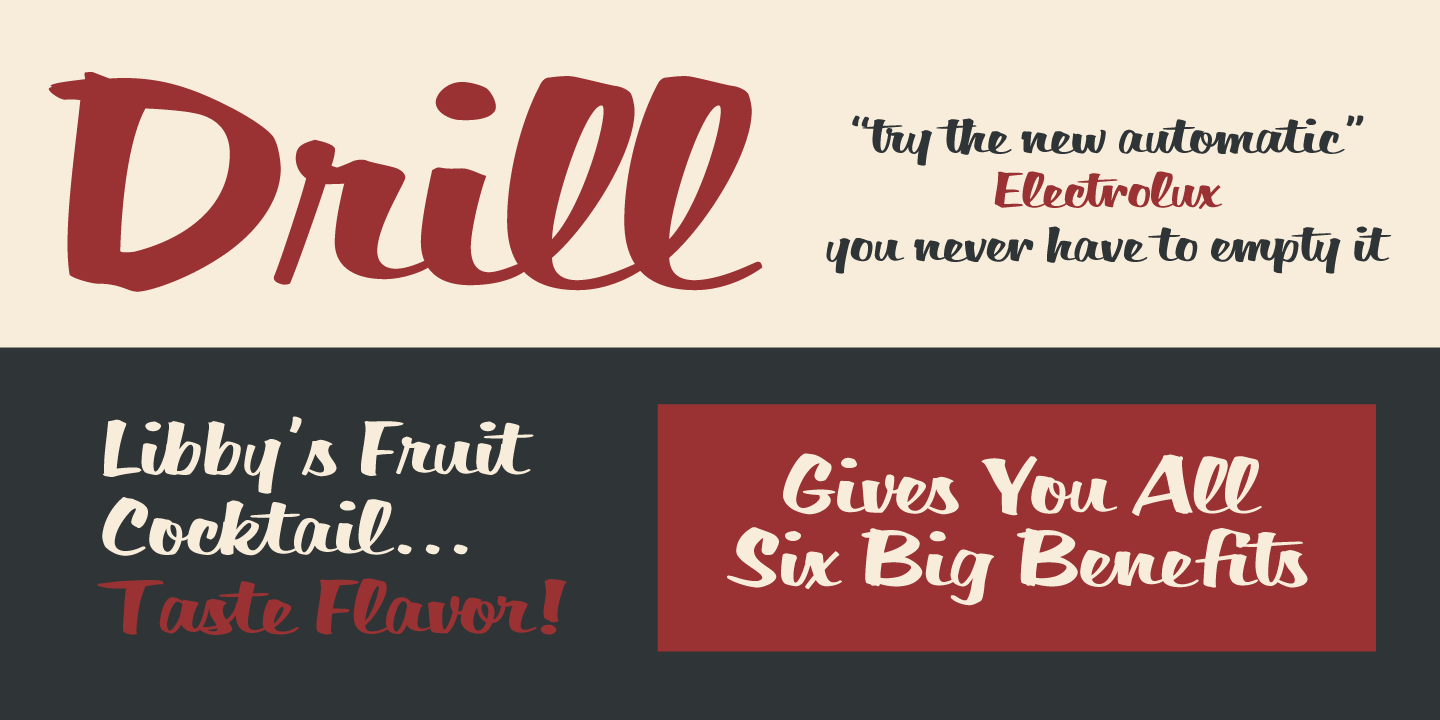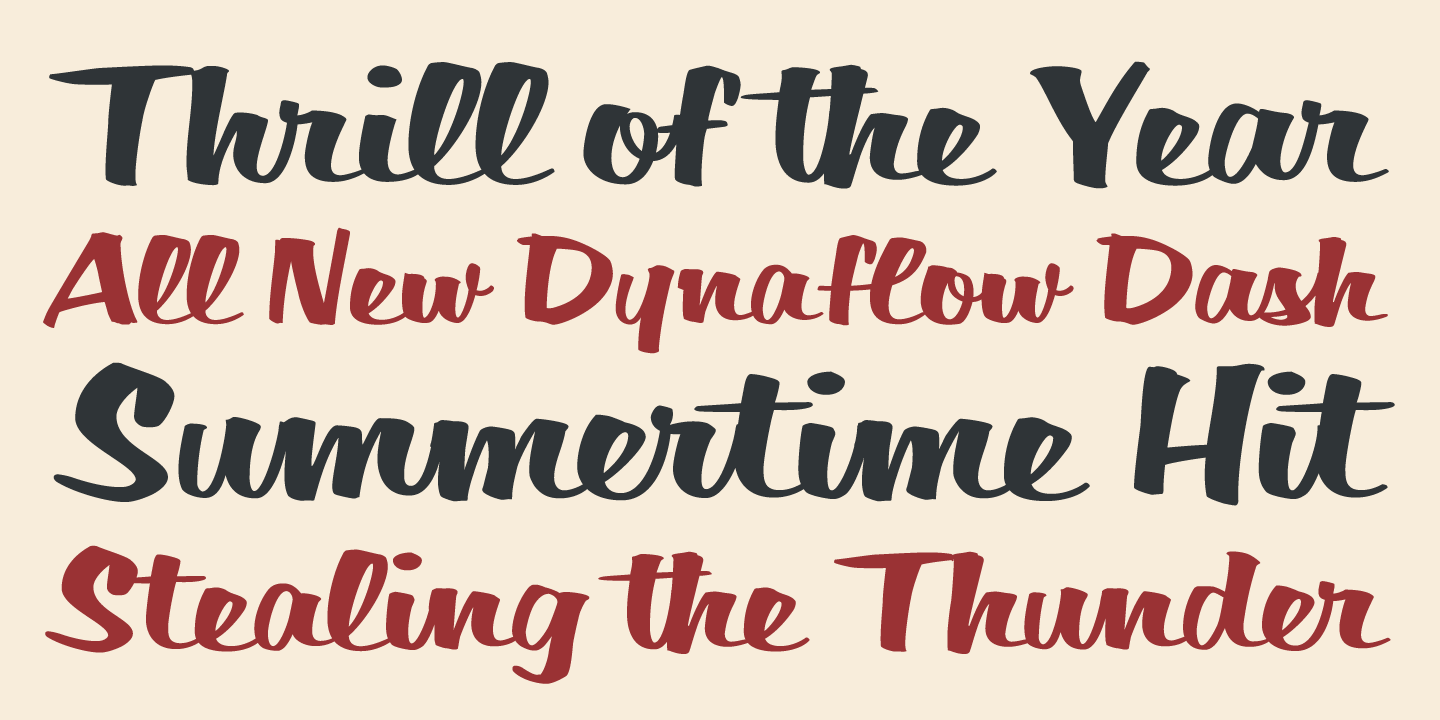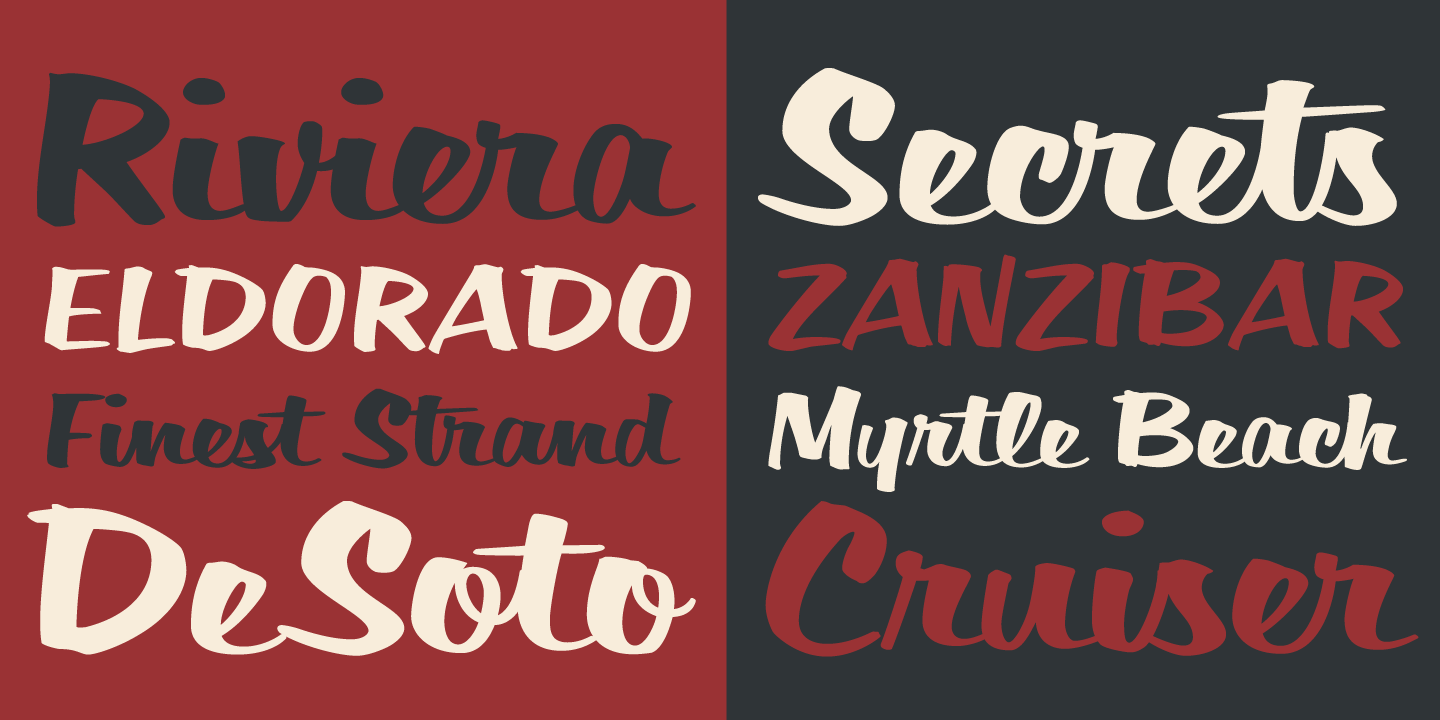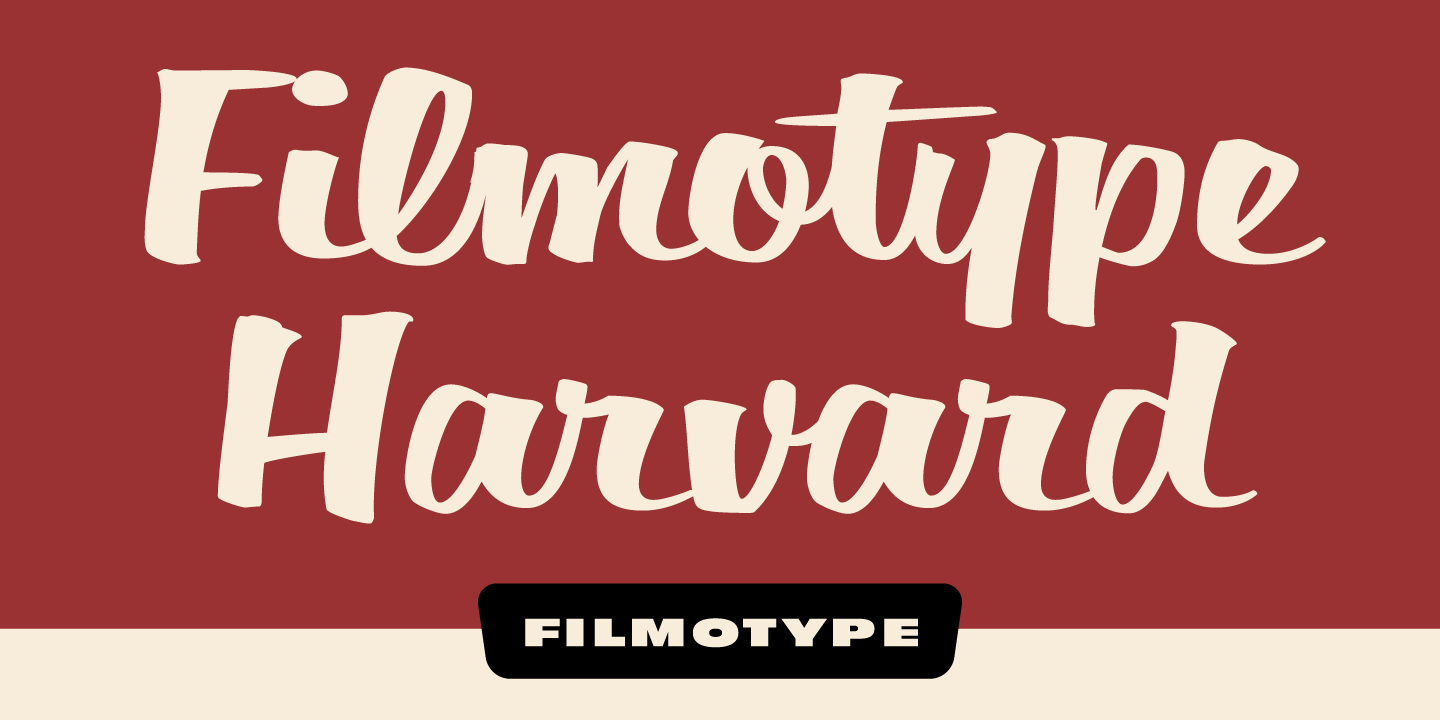
Filmotype Harvard
About Filmotype Harvard
Filmotype Harvard was released in 1955 following the released of Filmotype Horizon the year prior at the request of customers looking for a wider version of Filmotype Horizon. This playful natural brush script was called on when a wider design application…